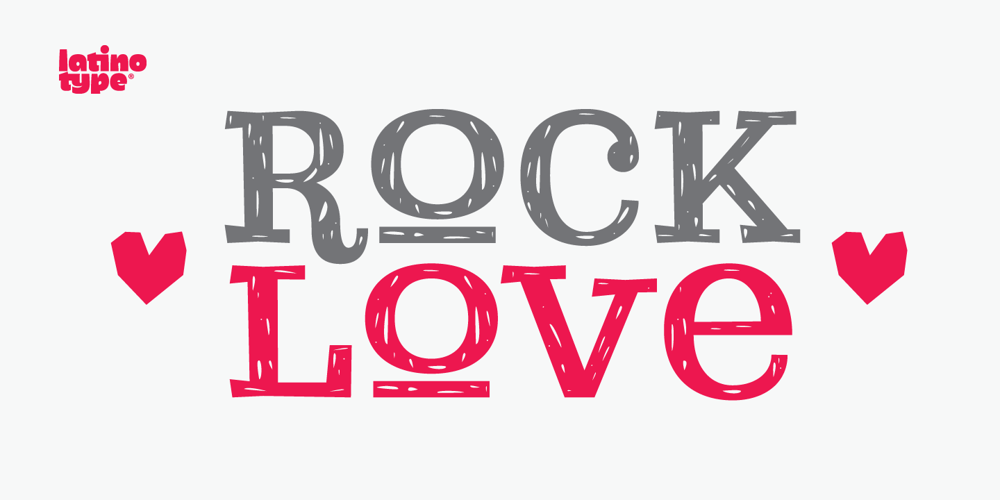
Courtney Font Family was designed by Eli Hernández and published by Latinotype. Courtney contains 4 styles and family package options. Courtney is a display font, unicase, with thick and irregular strokes. It contains a varied set of ligatures that makes Courtney a very dynamic font, ideal for short texts, magazines, logos, etc. It also possesses a large amount of connectors like for example: and, the, by, among other, designed to complement the font.